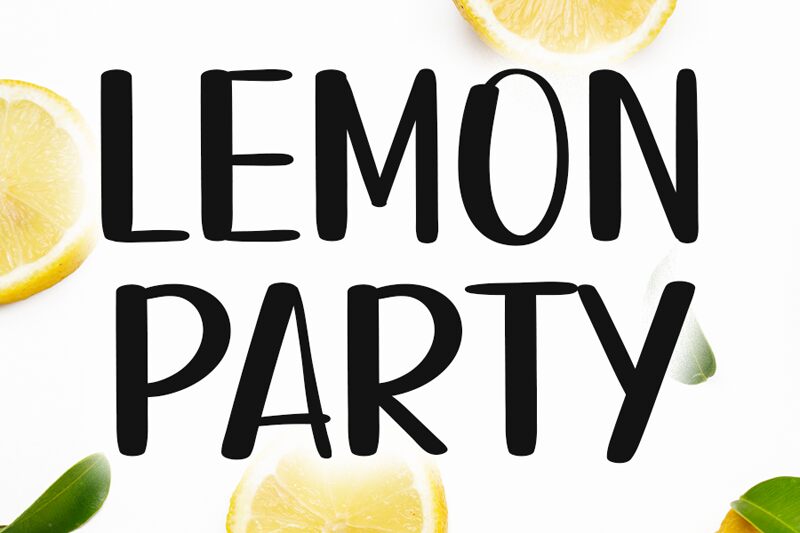
Lemon Party
Lemon Party font is a free handwritten font made by Creatype Designer. It has a grungy and energetic feel, with long and wide glyphs that come in an original design and irregular baselines. This fun typeface instantly evokes grunge themes, contemporary looks, casual vibes, and modern aesthetics.